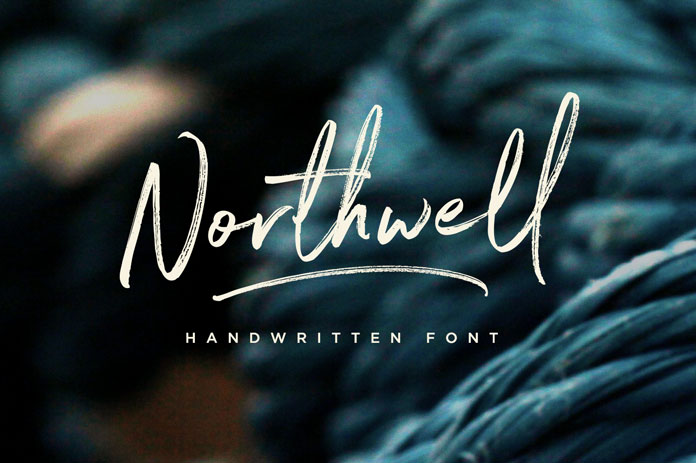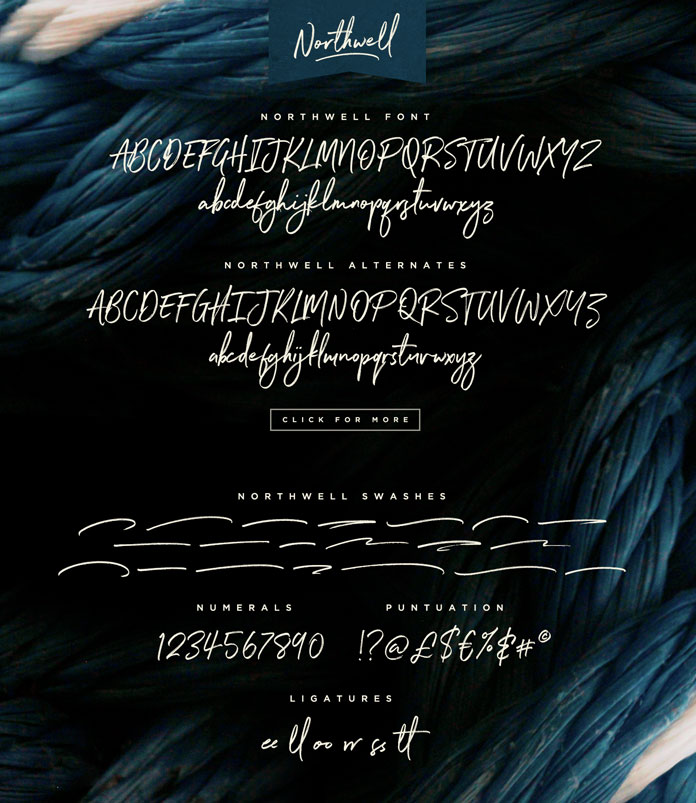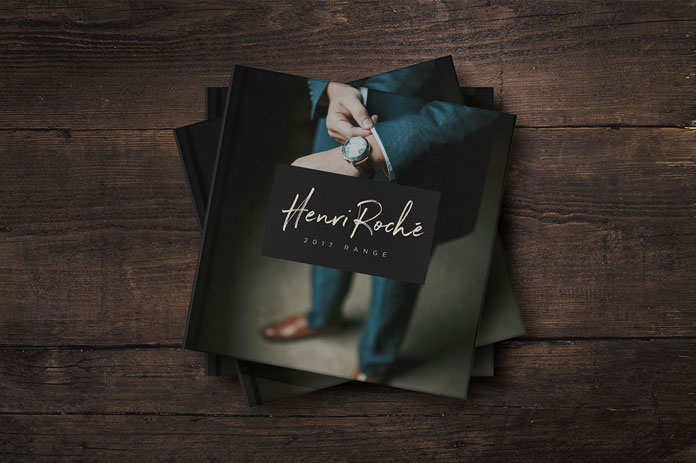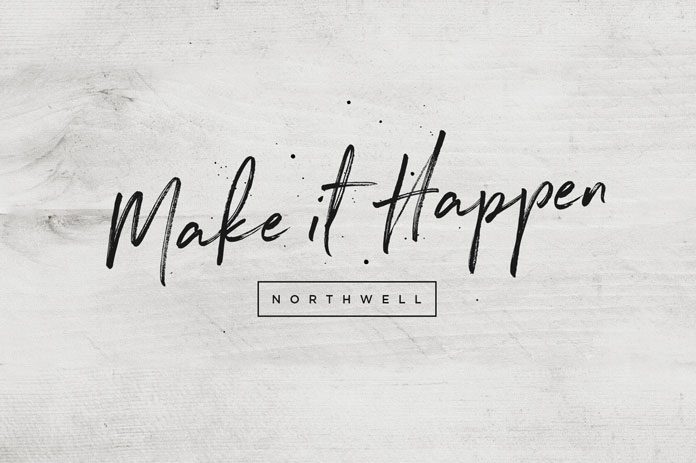
Northwell, a natural handwriting font created by Sam Parrett.
Let me introduce you to Northwell, a beautiful script typeface with a rustic but yet sophisticated touch. Made in a natural handwriting style, this new font by Sam Parrett is well suited for a wide range of applications such as logo designs and branding projects as well as invitations, product packaging, etc. It also works great as text overlay to stylish background images. Equipped with some additional features and options, this natural handwriting font offers an incredible number of opportunities. Get more information below the first image or click on the following link.
A natural handwriting style that comes with 3 different font files.
The regular version of the Northwell typeface is a rustic handwritten script font with uppercase and lowercase characters as well as numerals and several punctuation options. Northwell’s second version includes an alternative set of characters. You can mix them with the regular styles to give your typographic work a more natural handwritten style. The third font file includes a great set of handmade swashes. You can add these swashes to your text to give it a more sophisticated finish. But how does it work you may ask – just simply install the Northwell Swash font file, then select it from your font menu and type any A-U character to create some stylish swashes.
When downloading this beautiful typeface you get both TTF and OTF formats. The Northwell font also includes ligatures for several lowercase letters and supports multiple languages. To get a closer look, please follow the link below.